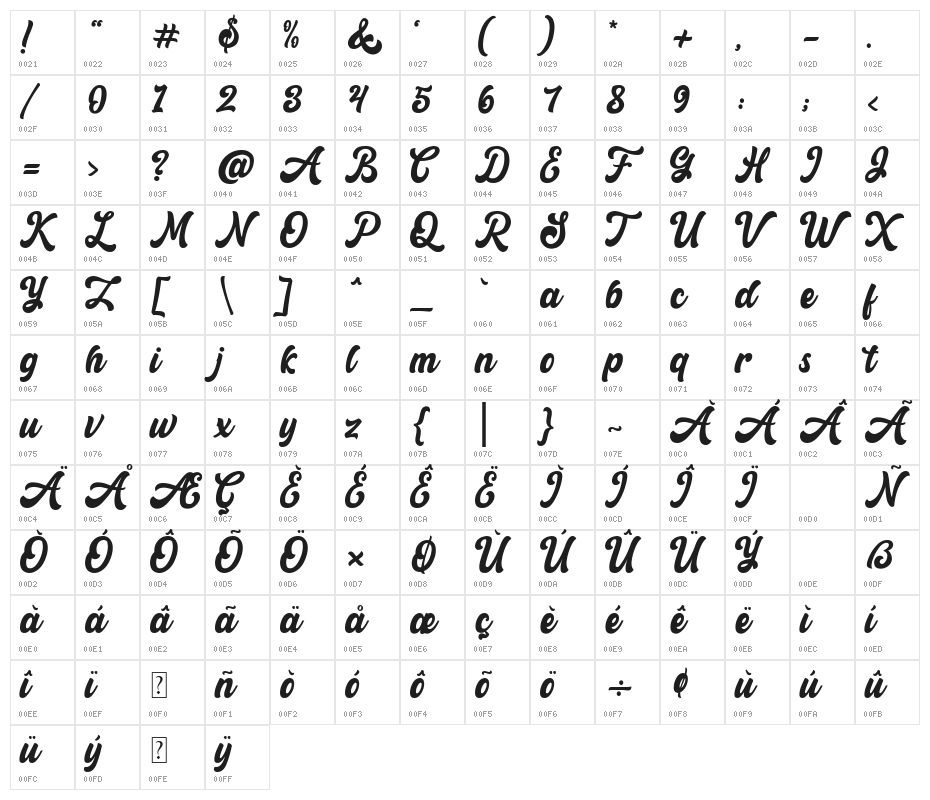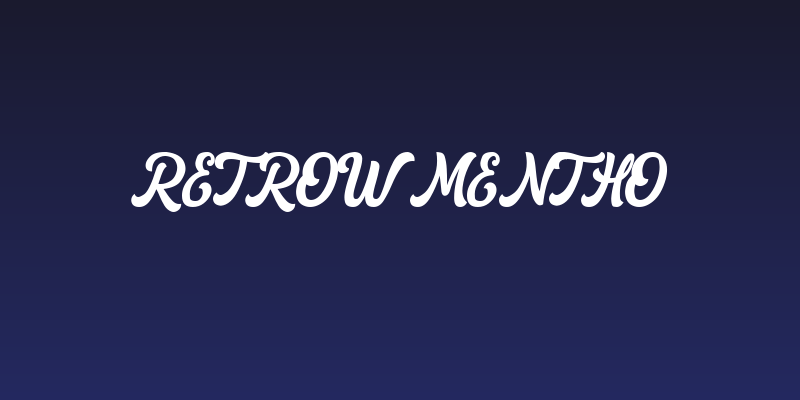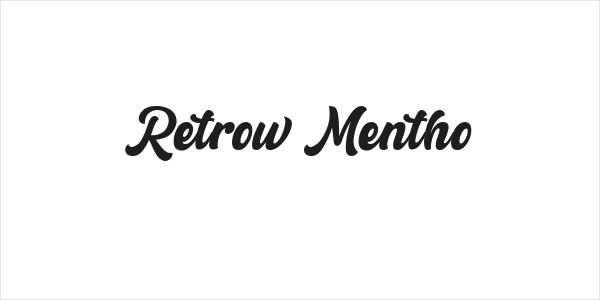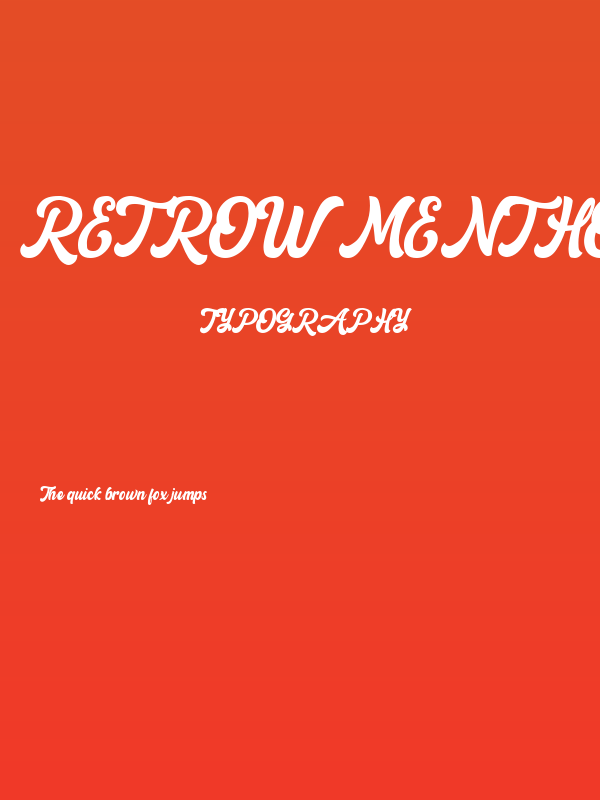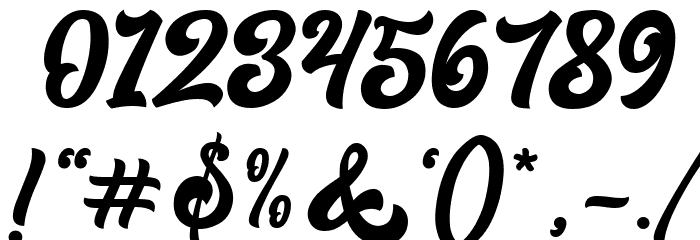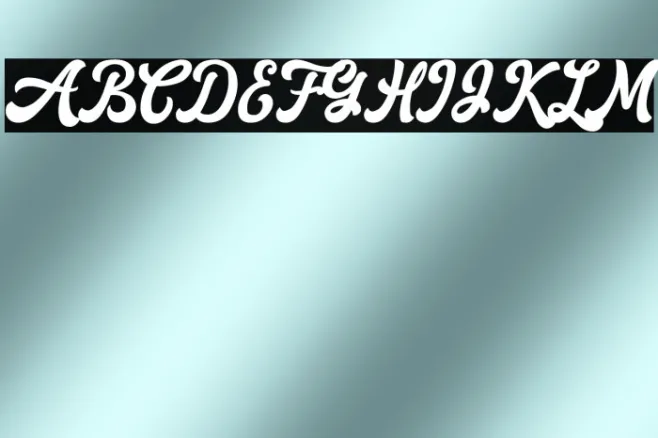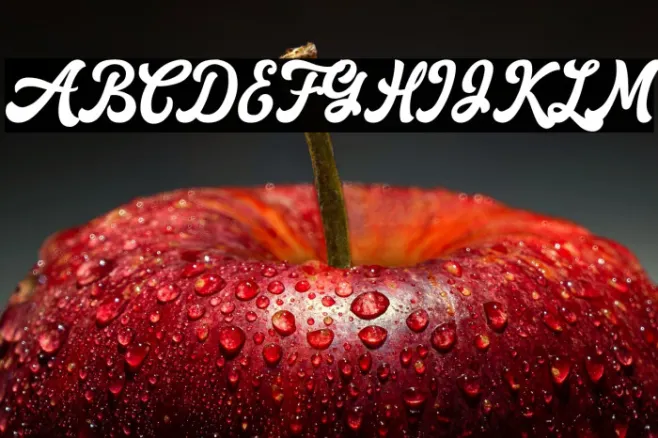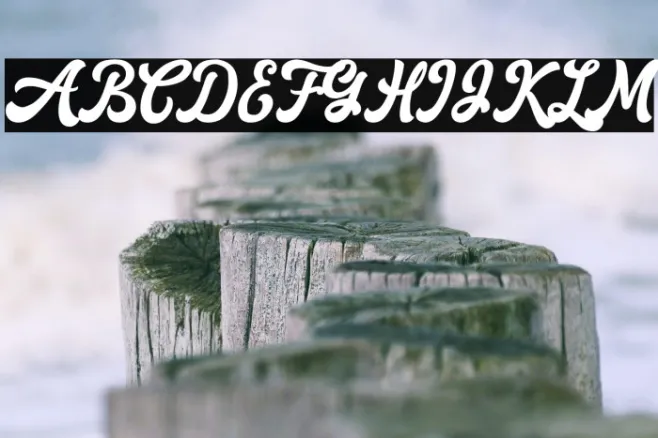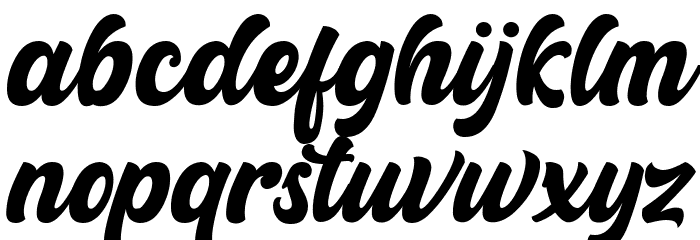
Retrow Mentho Font
Retrow Mentho Description
This font features a bold and expressive script style with a flowing, cursive design. The letters are interconnected, creating a sense of continuity and movement. The uppercase characters are elegantly crafted with sweeping curves, while the lowercase letters maintain a consistent rhythm and balance. The numerals are designed with the same fluidity, ensuring a cohesive look across all characters. Special characters and punctuation are included, maintaining the font's overall aesthetic. This font exudes a retro charm, reminiscent of vintage signage and advertisements.
| Use Case | Logos, Headlines, Signage |
| Proposed Projects | Ideal for vintage-themed designs, logos, signage, and branding projects that require a touch of nostalgia and elegance. |